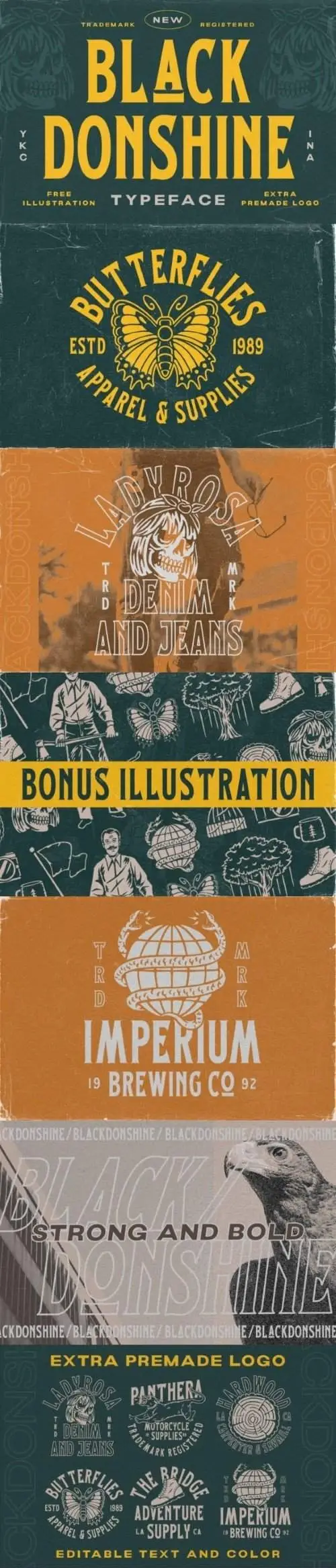
Black Donshine Font
Black Donshine is a display typeface that demands attention with its bold vintage looks. The sharp hooks and strong lines create a sense of toughness. It comes with an illustration bonus!. This font is perfect for designs that require a bold and modern look, such as logos, posters, and advertisements such as invitations, labels, logos, magazines, books, greeting/wedding cards, packaging, fashion, makeup, stationery, novels, labels or any type of advertising purpose.